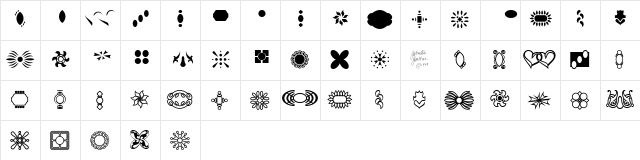
jeweler's kit III Regular Font Preview
jeweler's kit III Regular
jeweler's kit III Regular Font Details
Design Context for jeweler's kit III Typeface
jeweler's kit III is a composed and adaptable typeface that performs quietly and consistently across a wide range of design contexts.